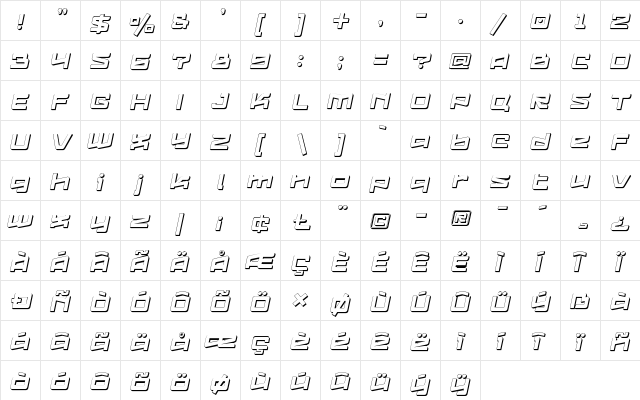
Logofontik 4F Extruded Italic
| Foundry | Sergiy S. Tkachenko |
| Designer | Sergiy S. Tkachenko |
Design Context for Logofontik 4F Typeface
Logofontik 4F offers clean, dependable letterforms without strong stylistic allegiance, making it a practical choice for designers who need flexibility. Its italic angle brings a sense of urgency and motion to the letterforms.
Pro Tip: Use Logofontik 4F for emphasis, pull quotes, and subheadings where its slanted energy can add rhythm to the layout.